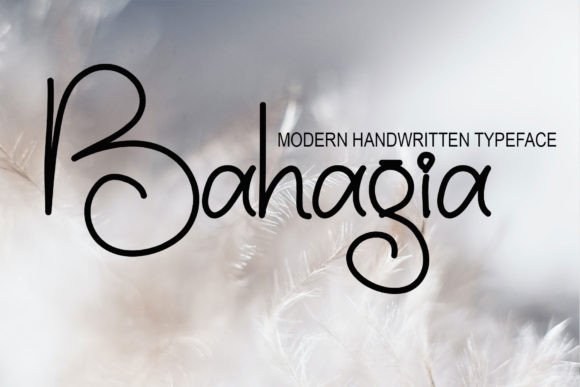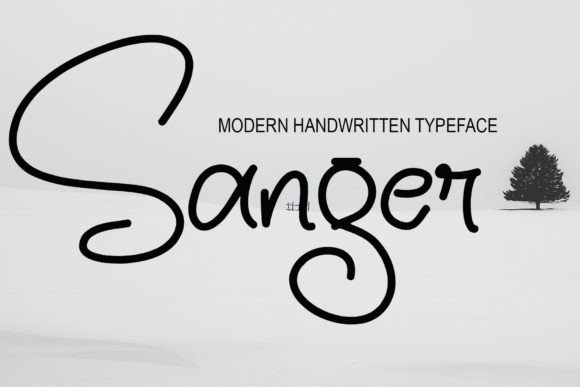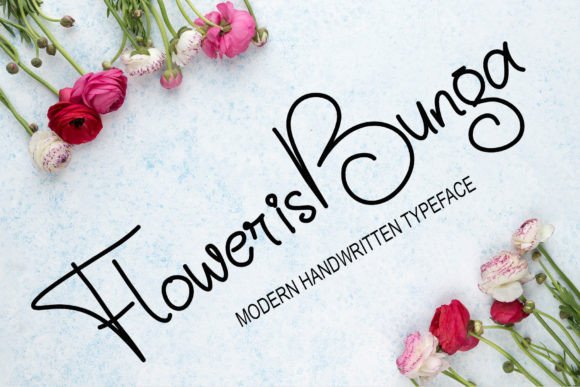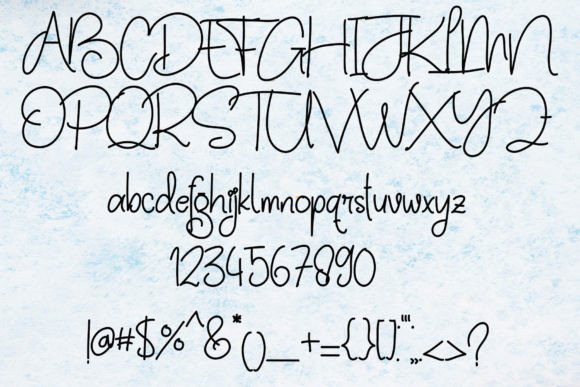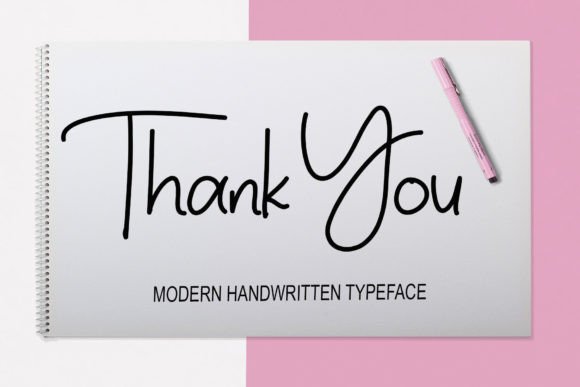
The Joy of Handwritten Typography: Discover the Elegance of Jantong Font
As a designer, there’s nothing quite like the thrill of discovering a new font that sparks creativity and sets your imagination ablaze. For me, it was the moment I stumbled upon the Jantong Font – a stunning handwritten typeface that embodies the perfect blend of elegance and playfulness. Its delicate thin lines and unique character shapes instantly captured my attention, leaving me eager to explore its endless possibilities.
Designed specifically for logos, wedding invitations, business cards, signatures, websites, and advertisements, the Jantong Font is a valuable addition to any designer’s toolkit. Its versatility and adaptability make it a go-to choice for crafting projects that require a touch of sophistication and whimsy. Whether you’re a seasoned pro or just starting out, the Jantong Font is sure to inspire your next creative project and leave a lasting impression on your audience.
Jantong Font Key Features
- Unique Characteristics: Jantong Font features a unique blend of traditional and modern elements, with intricate details and subtle nuances that set it apart from other fonts.
Jantong Font Review
Overall, I’d say Jantong Font is a decent addition to any designer’s toolkit. Here’s what works well: ✨ The font’s unique blend of traditional and modern elements is refreshing, and its versatility makes it suitable for a wide range of projects. ✨ The font’s bold weights are particularly effective at grabbing attention, while the lighter weights add a touch of sophistication. ✨ Additionally, the font’s x-height is well-balanced, making it easy to read even at smaller sizes.
However, there are some limitations to consider: ⚠️ The font’s italic styles can feel a bit awkward, particularly when used in conjunction with the bold weights. ⚠️ The font’s uppercase letters can also be a bit too ornate for some projects, which may not be ideal for clean and minimal designs. ⚠️ Finally, the font’s support for certain languages is limited, which may be a concern for designers working on multilingual projects.
Design Implications
- Use Jantong Font for projects that require a unique blend of traditional and modern elements.
- Avoid using the font’s italic styles with bold weights.
- Experiment with the font’s various weights and styles to find the perfect fit for your project.
For optimal results, use Jantong Font for headings and titles.
It is also suitable for body text in modern and minimalist designs.